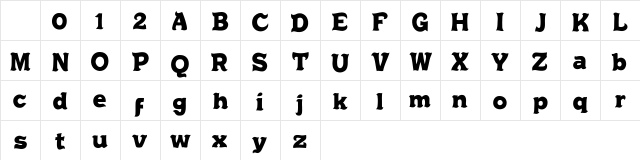
Chrusty Rock is a composed and adaptable typeface that performs quietly and consistently across a wide range of design contexts.
Pro Tip: Use Chrusty Rock in both headline and body roles to test its range before committing to a single application.